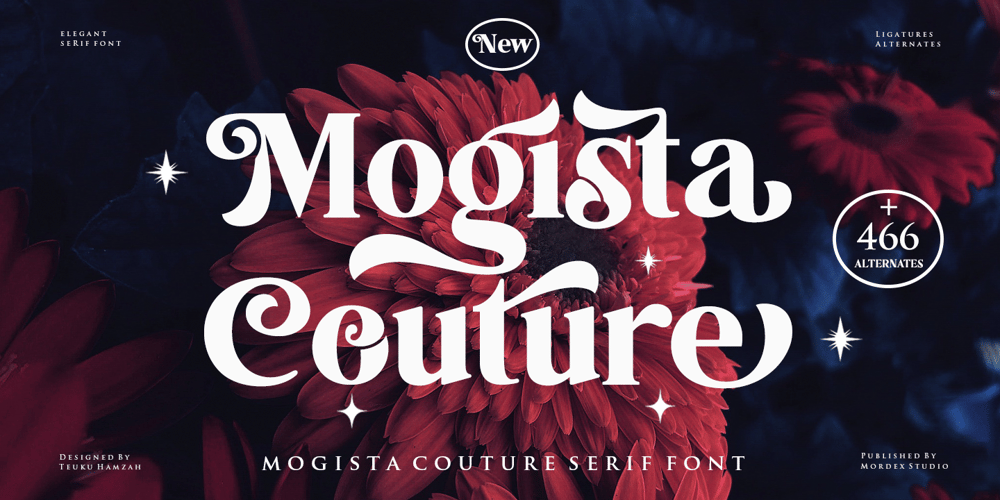
Mogista Couture Font Family was designed by Teuku Hamzah and published by Mordex Studio. Mogista Couture contains 5 styles and family package options. Mogista Couture is a bold vintage-style serif font with strong character and soft features. Mogista Couture comes with binder alternatives and to help you create something spectacular every time.This font is PUA encoded, which means you can access all the glyphs and sweeps easily. This font is perfect for fashion design projects, logo designs, branding designs, wedding designs, product packaging designs, advertisements, products, labels, photography, social media and other products.